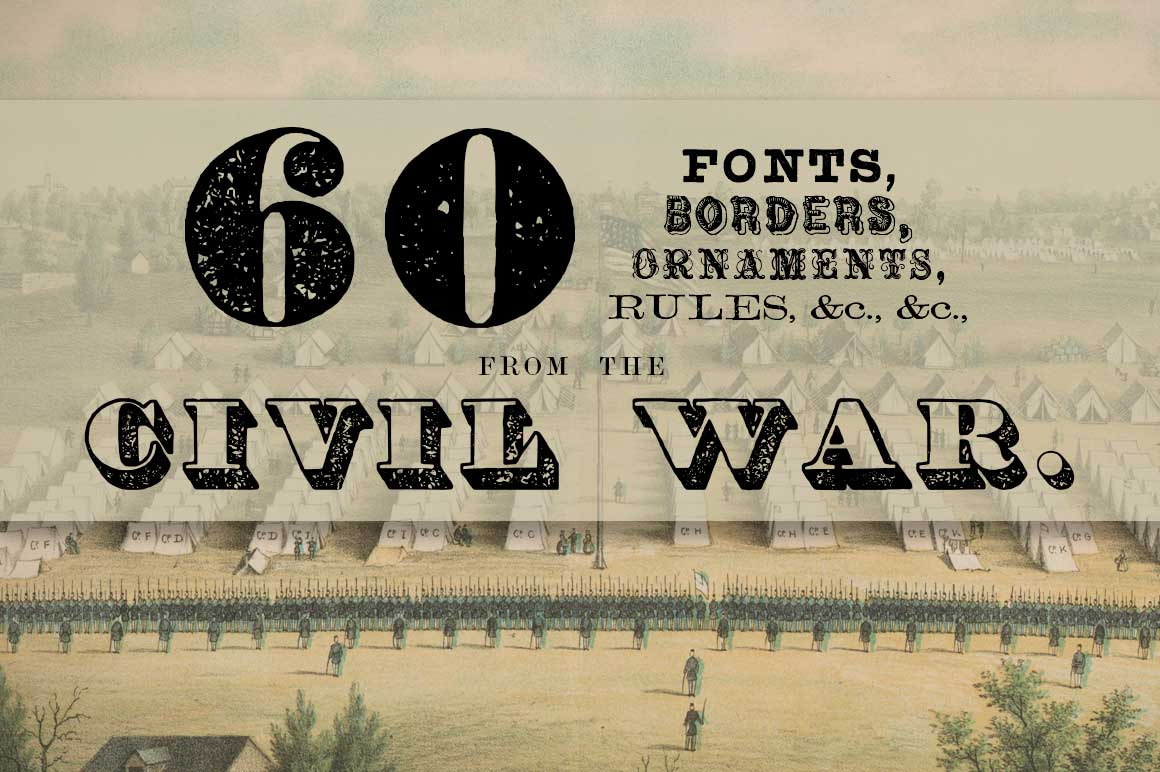
60 Fonts from the Civil War Bundle
The first volume in The Printer’s Type Case series is the culmination of three years of research into the typography of the Civil War era, and features 60 of the most common fonts, ornaments, and borders used between the years 1850 and 1865.
Every character has been scanned from the pages of original books and documents printed between 1848 and 1867 gathered from museums, private collections, and the Library of Congress.
These fonts are ideal for museums, historical reenactors and living historians, graphic designers and all lovers of historical type. Create stunning book covers, band logos and album art, and other high-impact branding projects. Also perfect for game design, packaging design, magazine imagery, wedding invitations, and much more.
All of our Civil War-era historical fonts were copied entirely from ORIGINAL LETTERS scanned from type specimen, business directories, song sheets, broadsides, and advertisements, printed between 1848 and 1867 gathered from museums, private collections, and the Library of Congress. No cheap work done, but instead with a neatness not to be excelled in the Typographical Art.